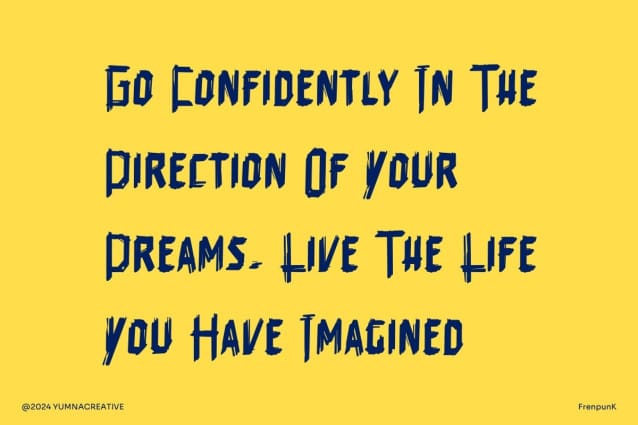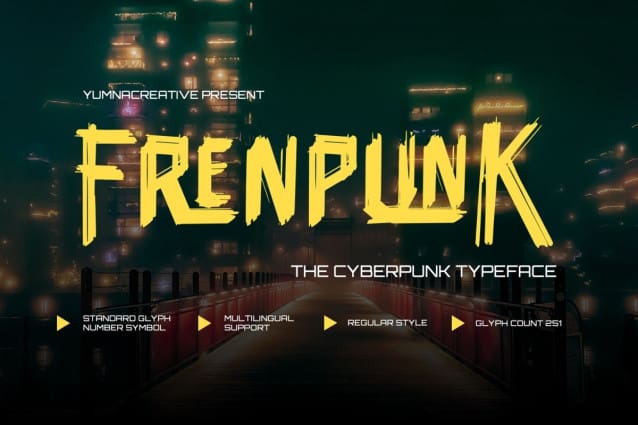
FrenpunK Cyberpunk Font
FrenpunK Cyberpunk Font is a mix of French culture and cyberpunk style. It combines futuristic technology, neon lights, and advanced cities with French influences like fashion, art, and language. The world is high-tech but also gritty, with a sense of rebellion and cool, streetwise characters living in a fast-paced, digital world.